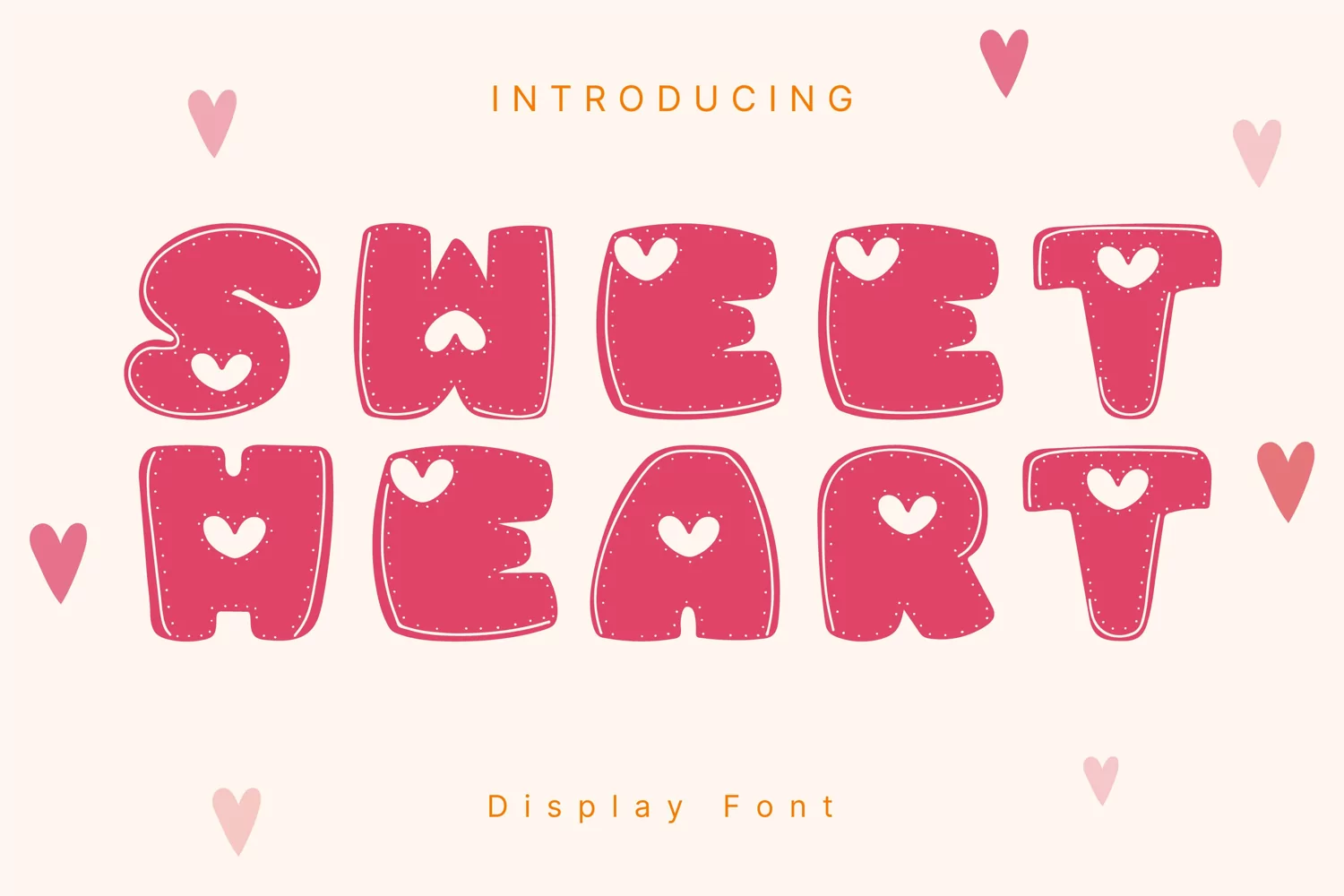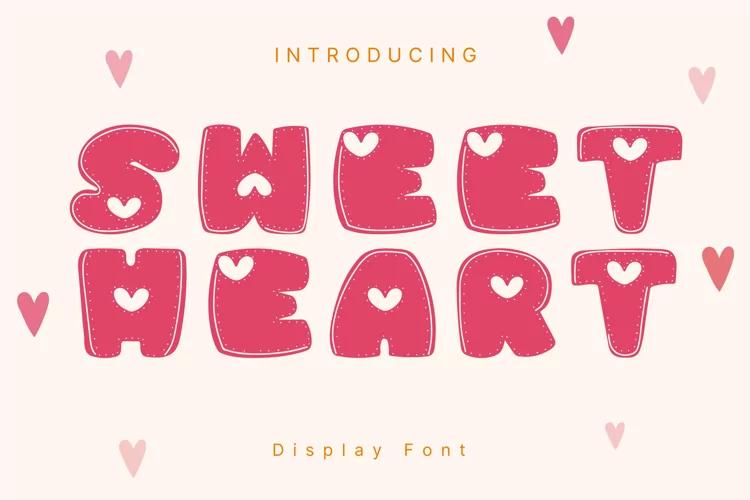
Sweet Heart Style
SweetHeart
Sweet Heart Style is a whimsical and clean handwritten font. It can easily be matched to an incredibly large set of projects, so add it to your creative ideas and notice how it makes them stand out!